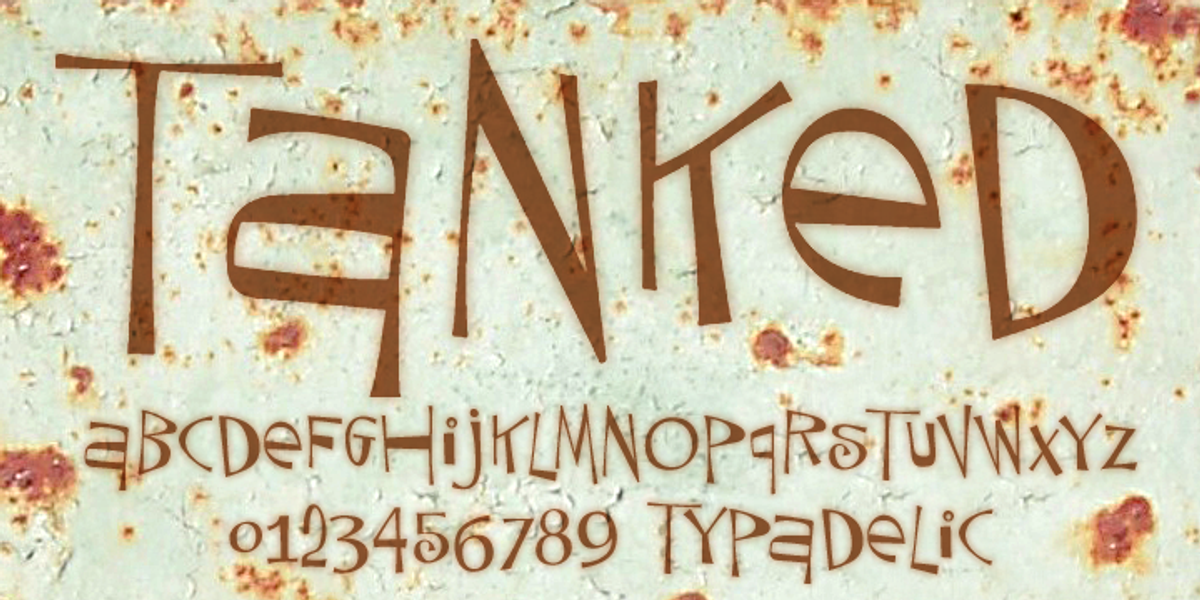
Tanked
Tanked is a playful and energetic handwritten font designed for adding a burst of fun to projects. Its unique characteristic is the mixed use of upper and lowercase letters, eliminating the need for strict typographic rules. This makes it ideal for headlines, short lines of body copy, scrapbooking titles and captions, or even greeting cards.